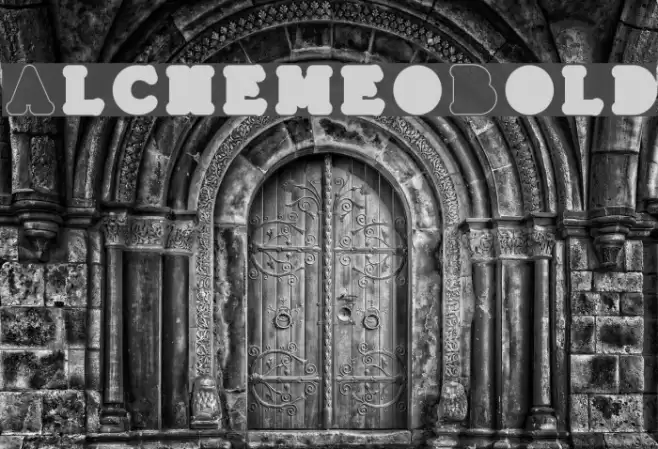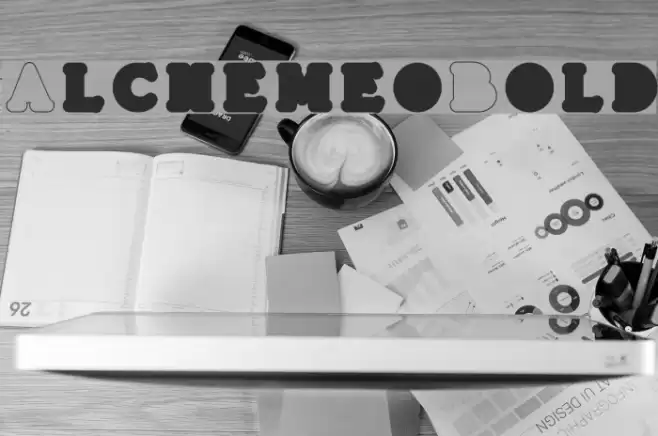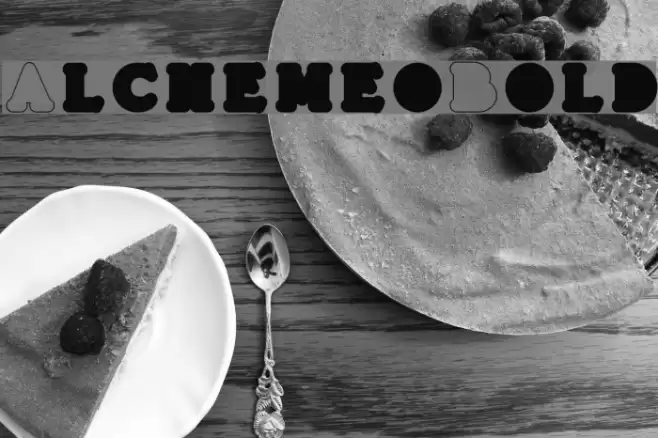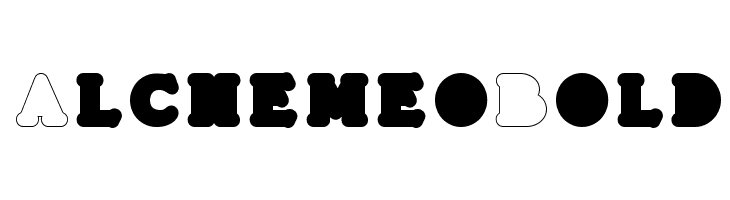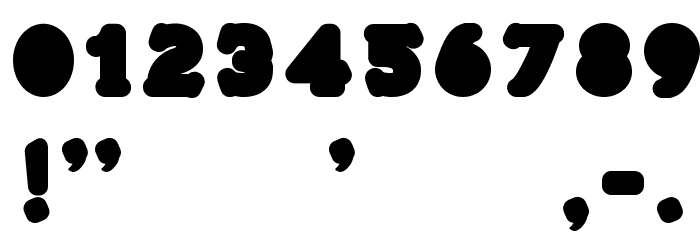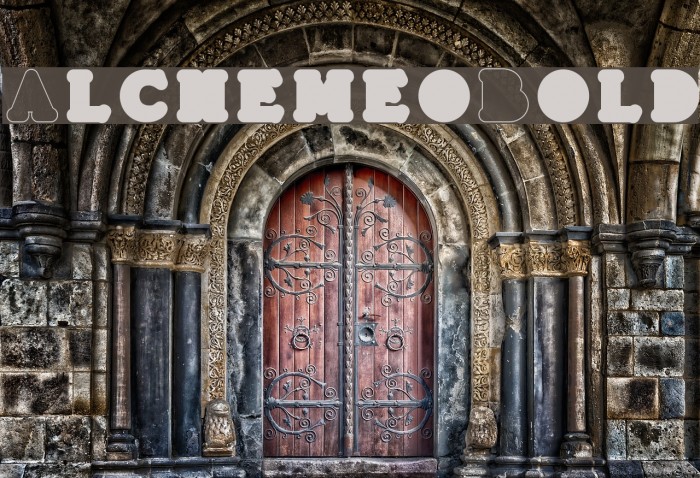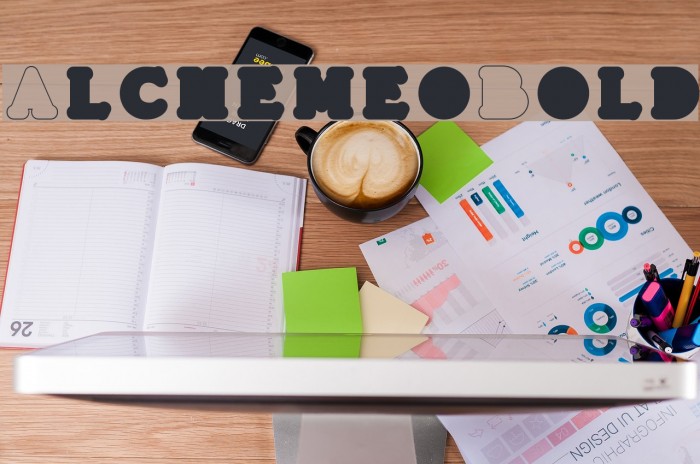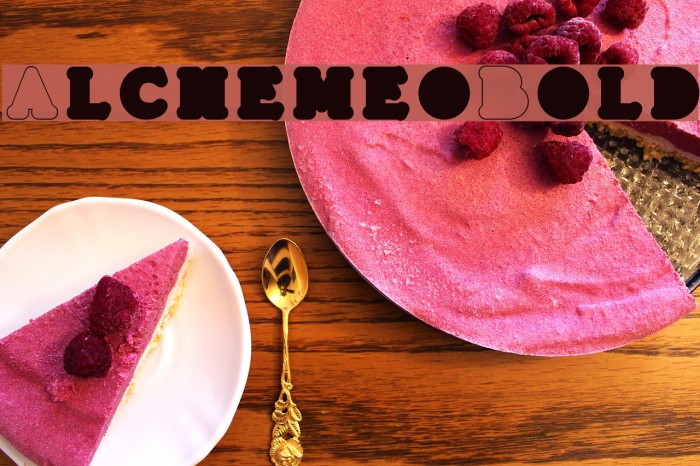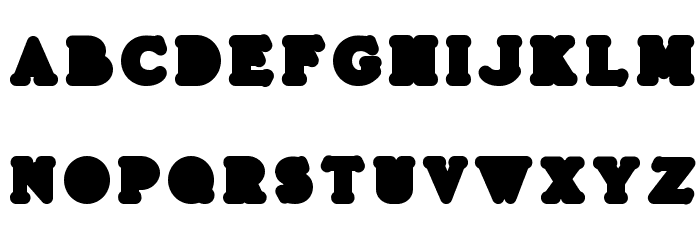
AlchemeoBold Font
AlchemeoBold Description
This font features a bold and playful design with thick, rounded strokes that give it a friendly and approachable appearance. The characters have a uniform thickness, contributing to a cohesive and solid look. The uppercase letters are particularly striking, with their robust forms and slightly exaggerated curves. The numbers and punctuation marks maintain the same bold style, ensuring consistency across all characters. This font is highly legible and makes a strong visual impact, making it suitable for attention-grabbing designs.
A bold, playful font with thick, rounded strokes and a friendly appearance from Uncategorized fonts.
- Proposed Projects: Ideal for children's books, playful branding, posters, and any design requiring a bold and friendly typeface.
- Overall Style: Playful, Bold